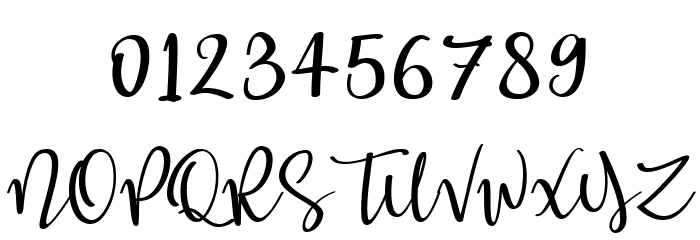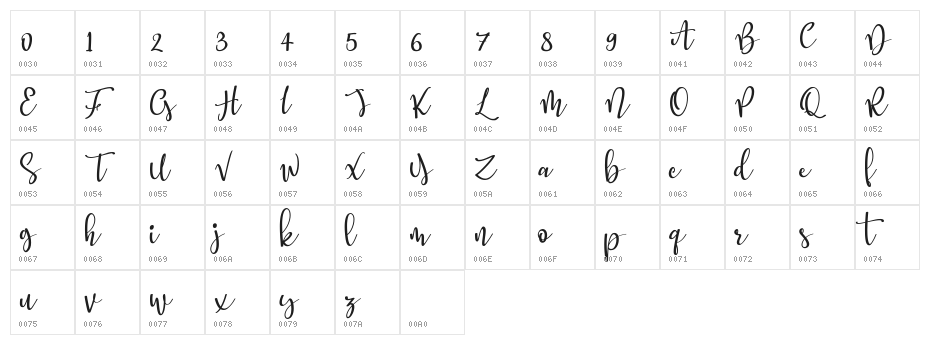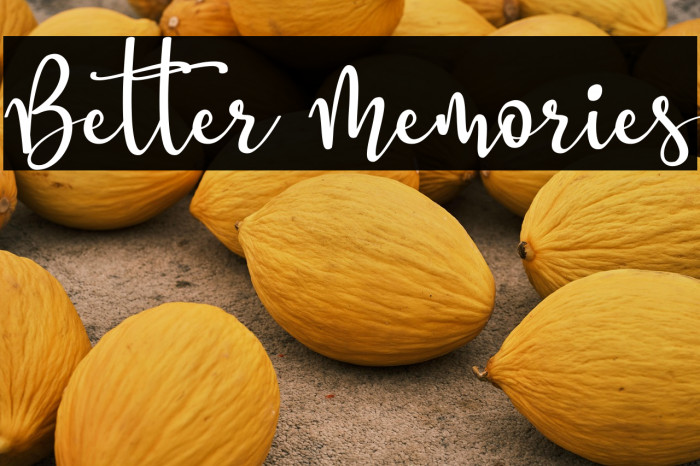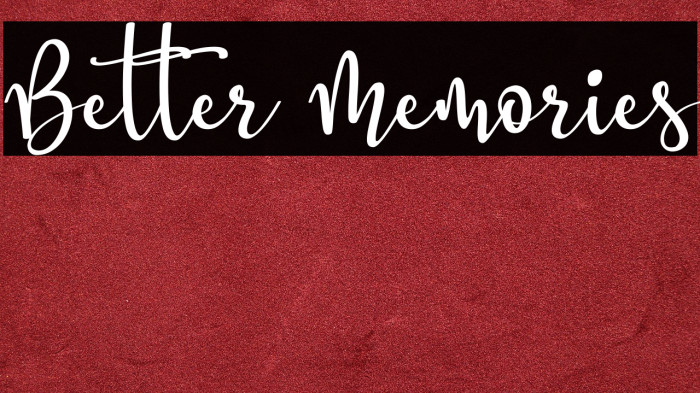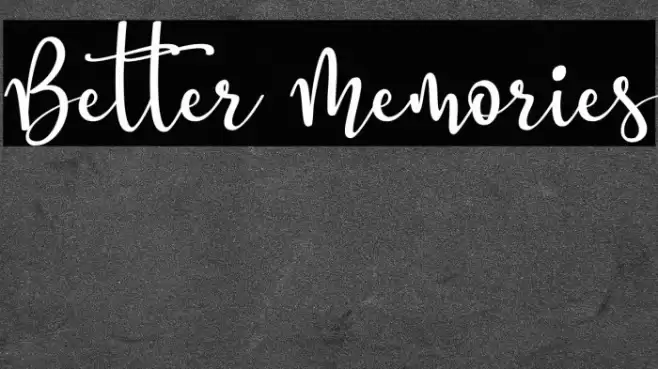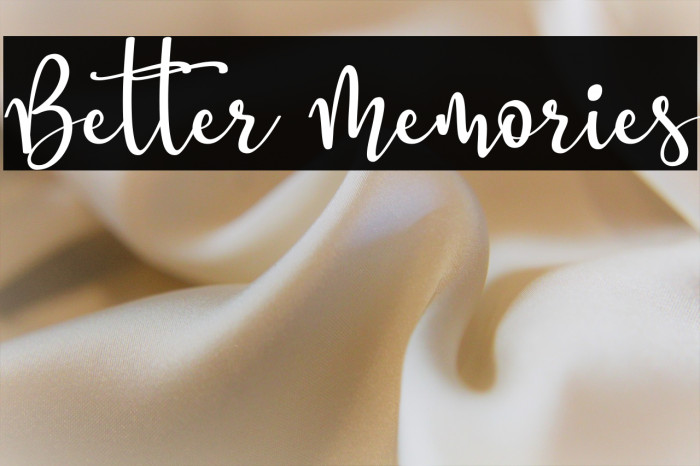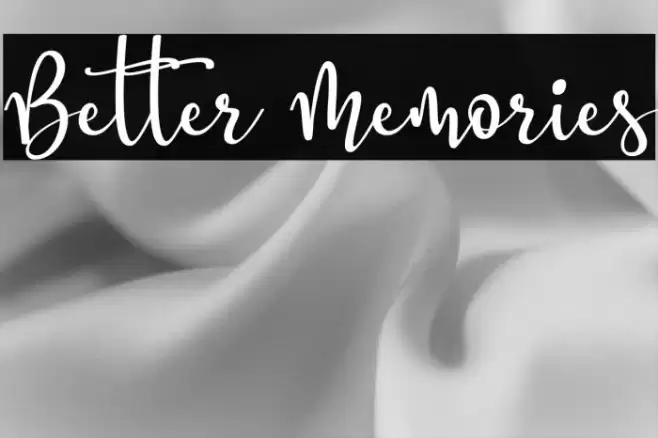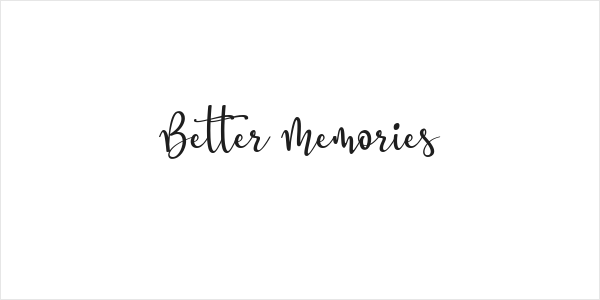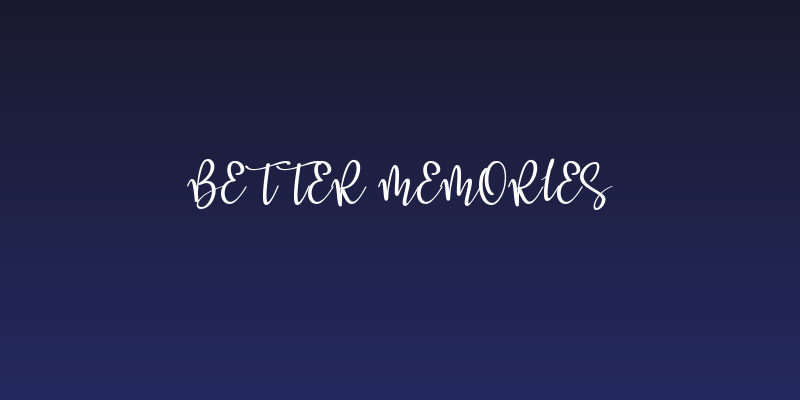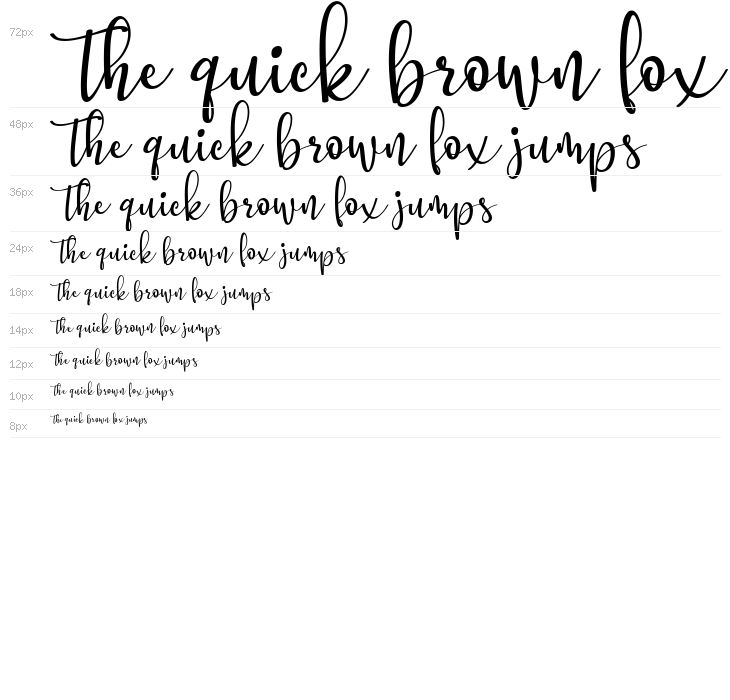
Better Memories Font
Better Memories Description
This font features a flowing, cursive style with a modern twist. The letters are interconnected, creating a seamless and elegant appearance. The strokes vary in thickness, adding a dynamic and lively feel to the text. The uppercase letters are bold and prominent, while the lowercase letters maintain a consistent flow. The numbers are clear and legible, matching the overall style of the font. Special characters are included, maintaining the same cursive and artistic flair. This font is perfect for projects that require a personal and creative touch.
| Proposed Projects | Ideal for wedding invitations, greeting cards, branding, and social media graphics. |